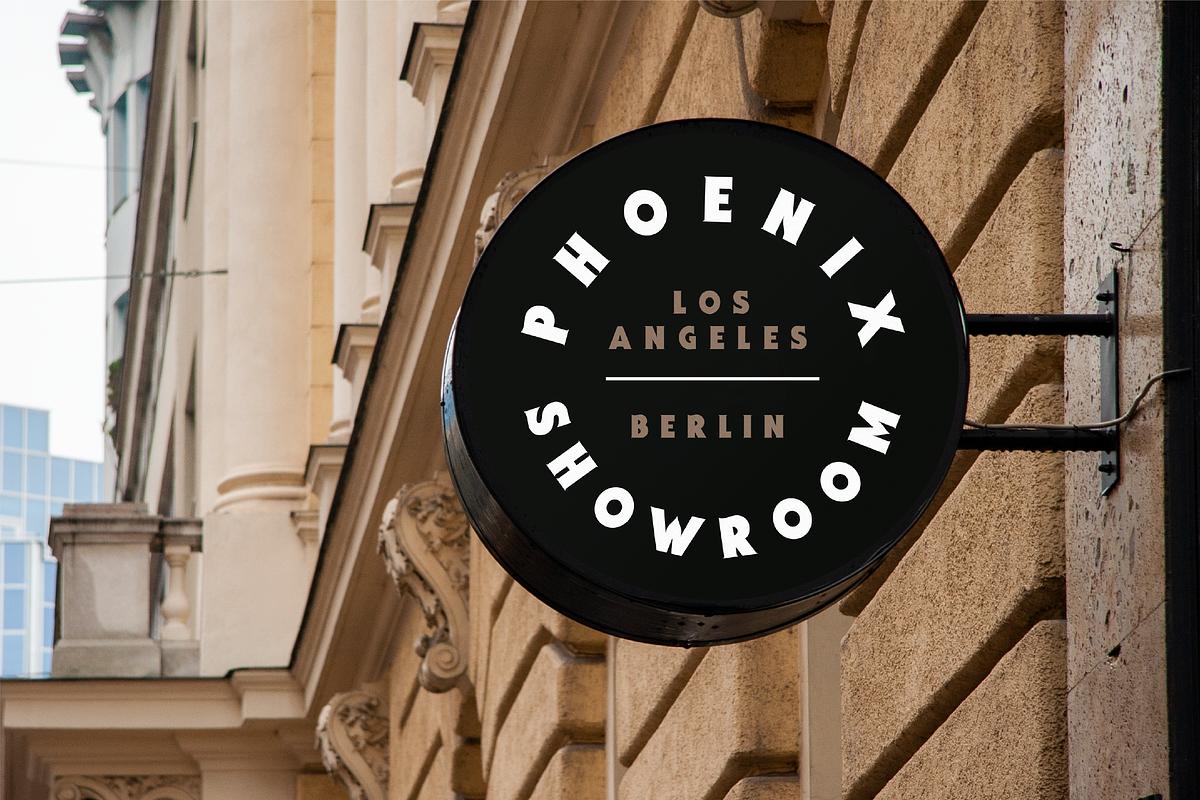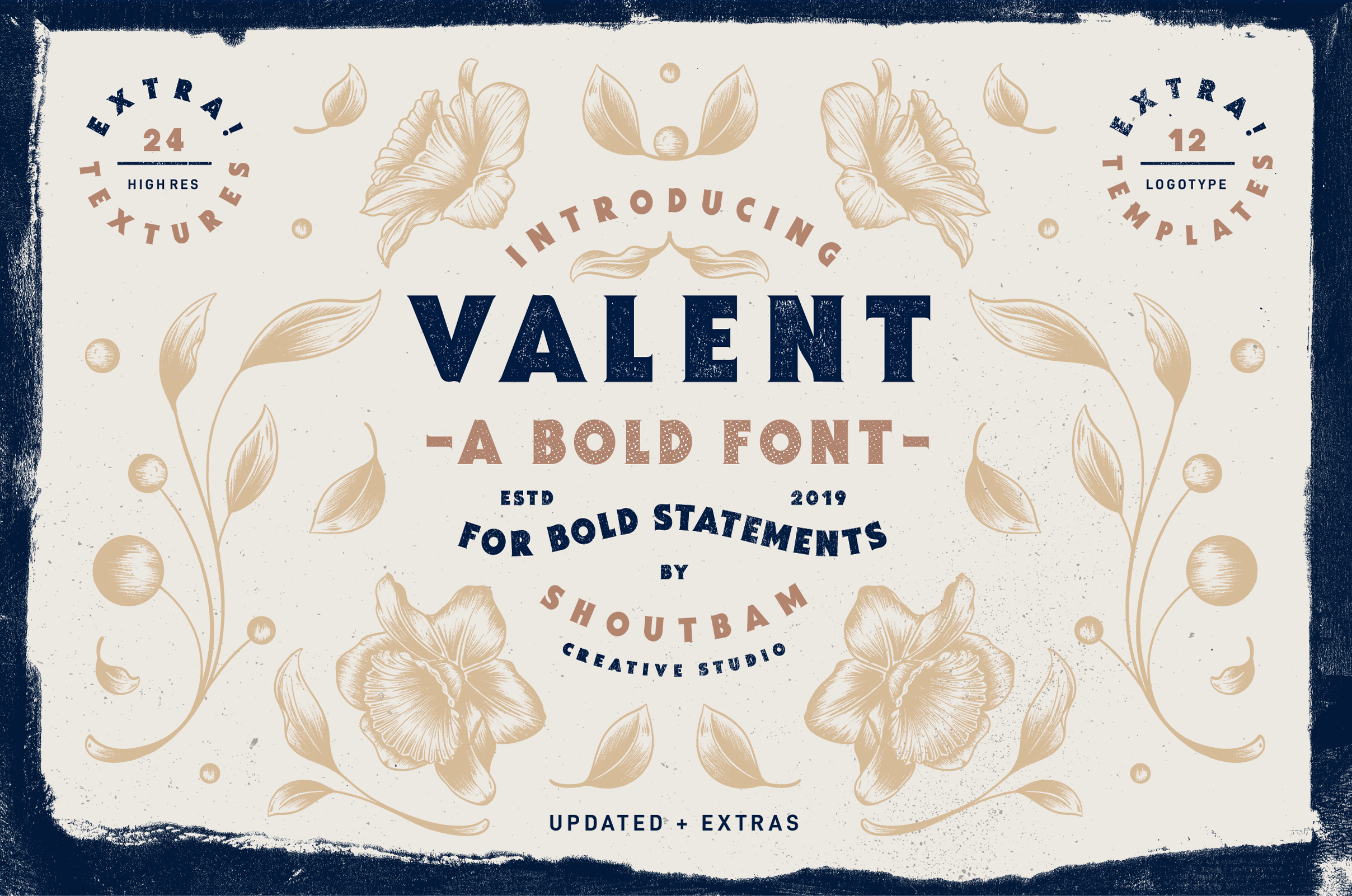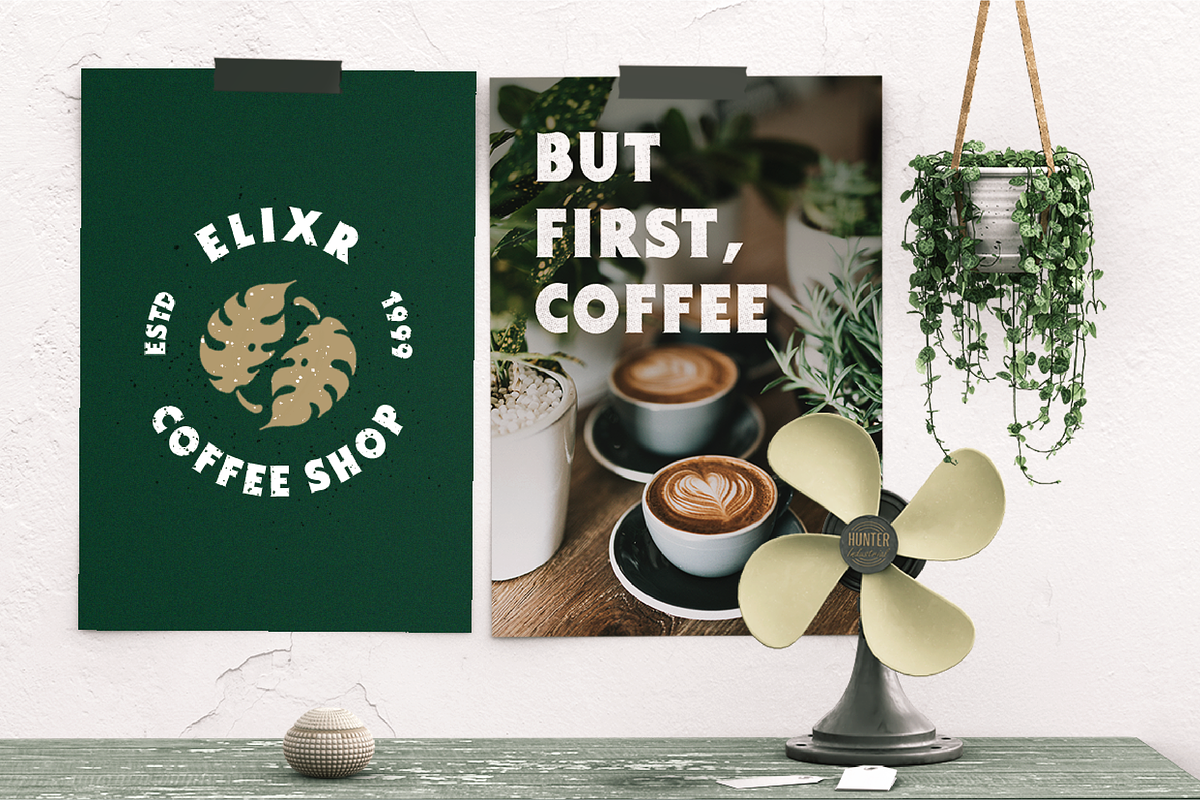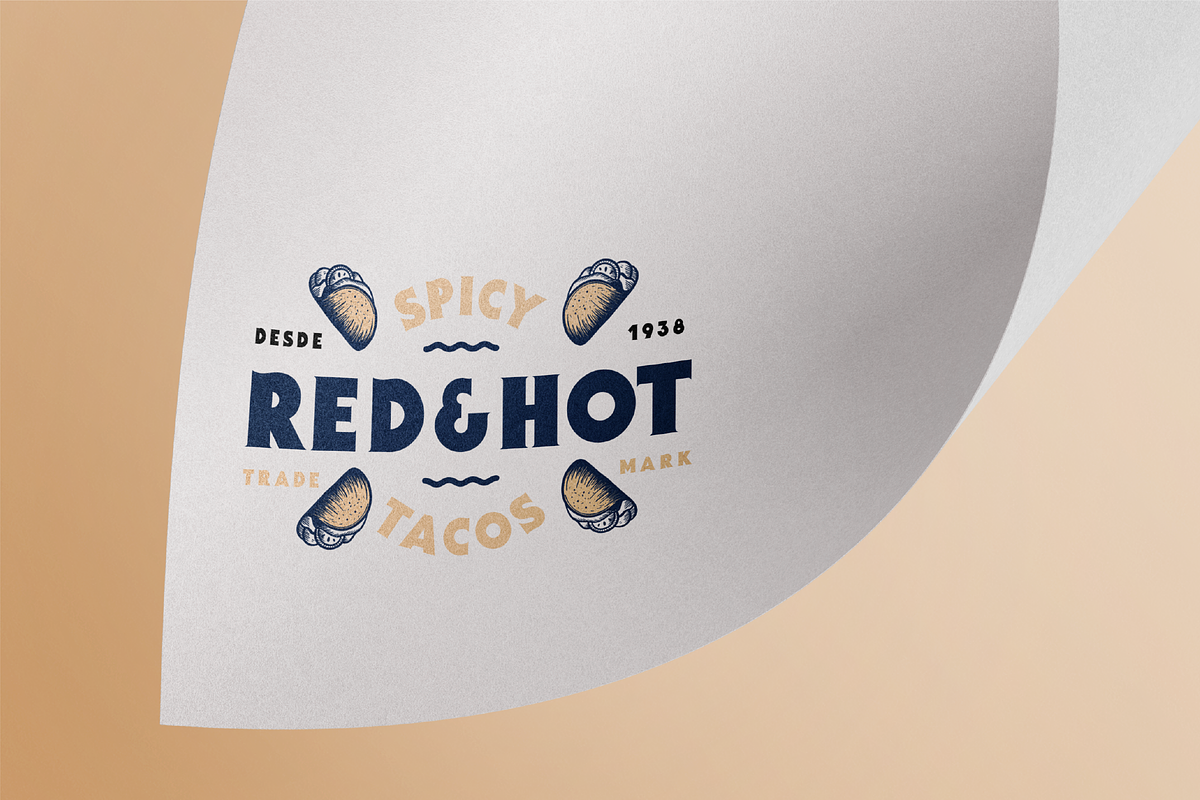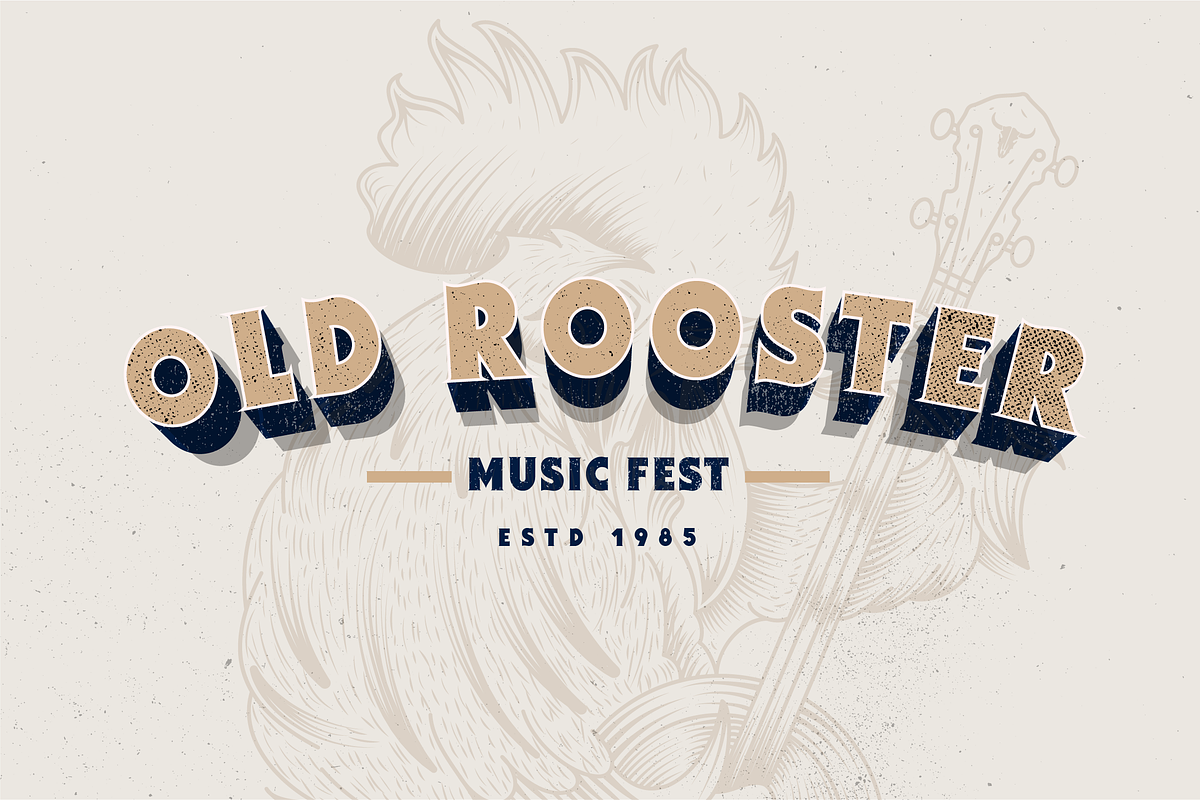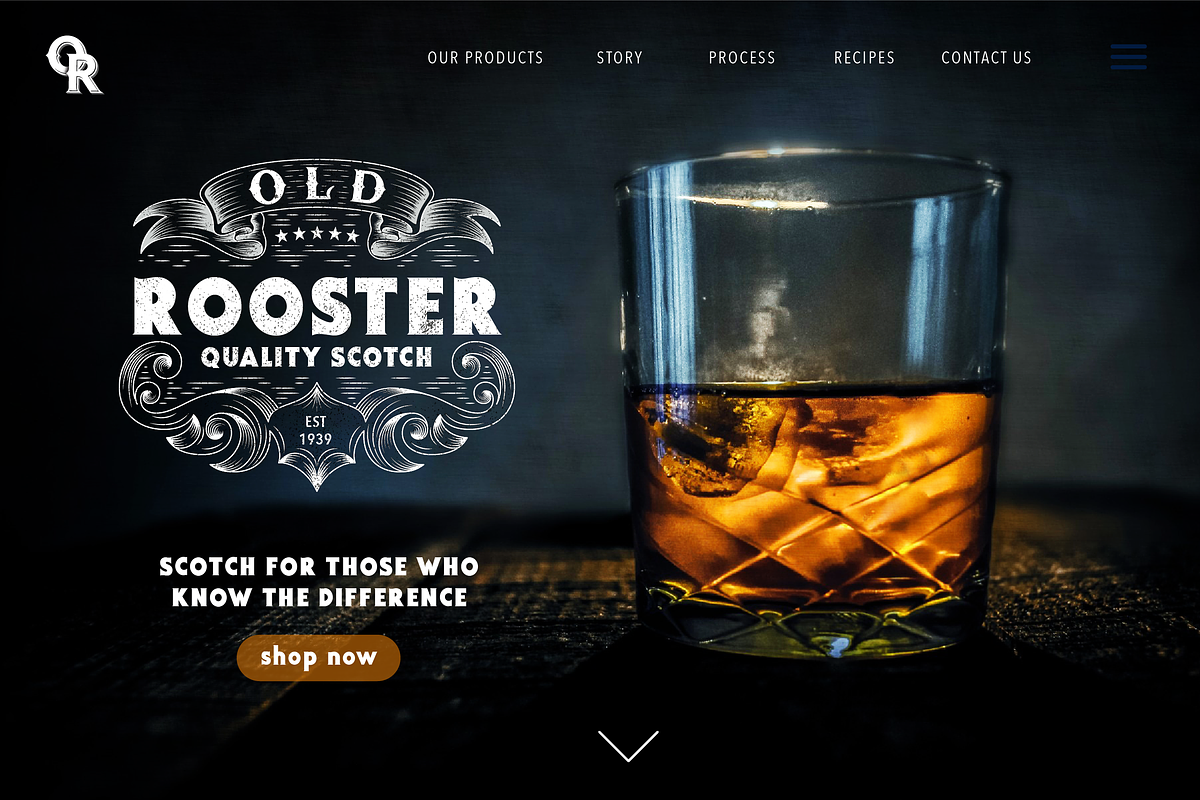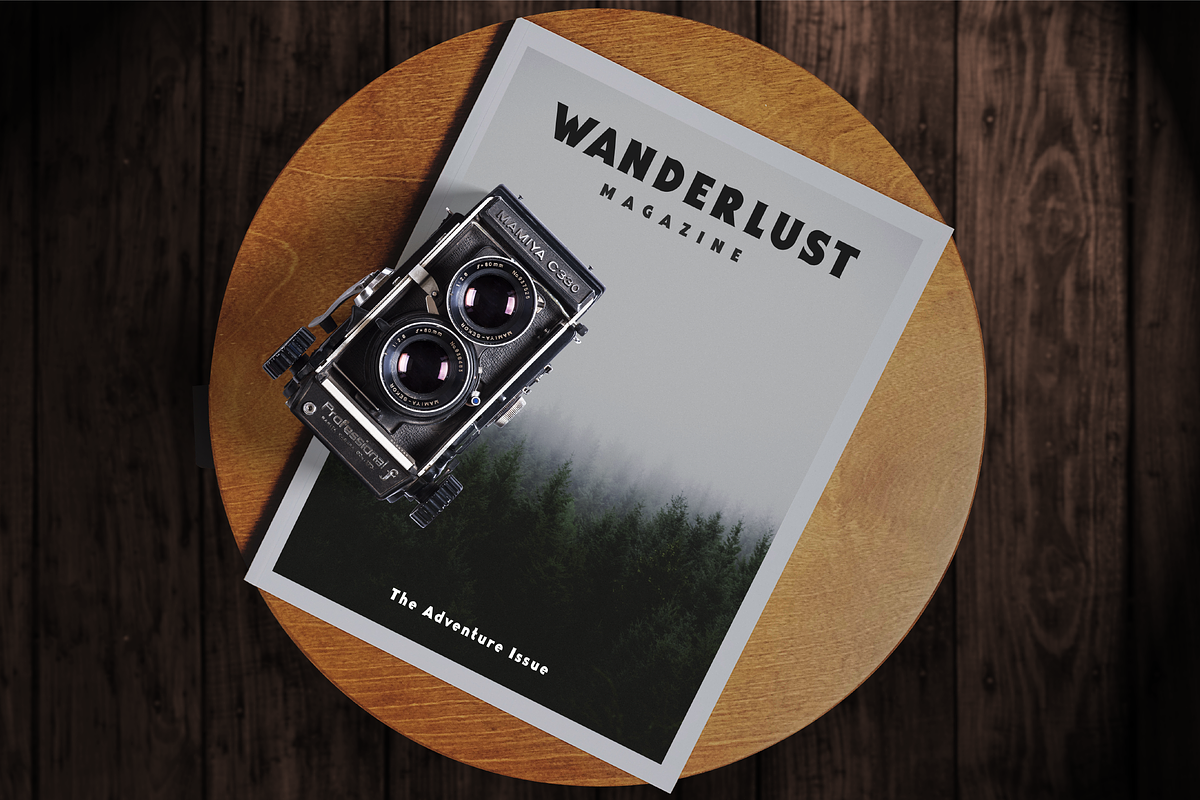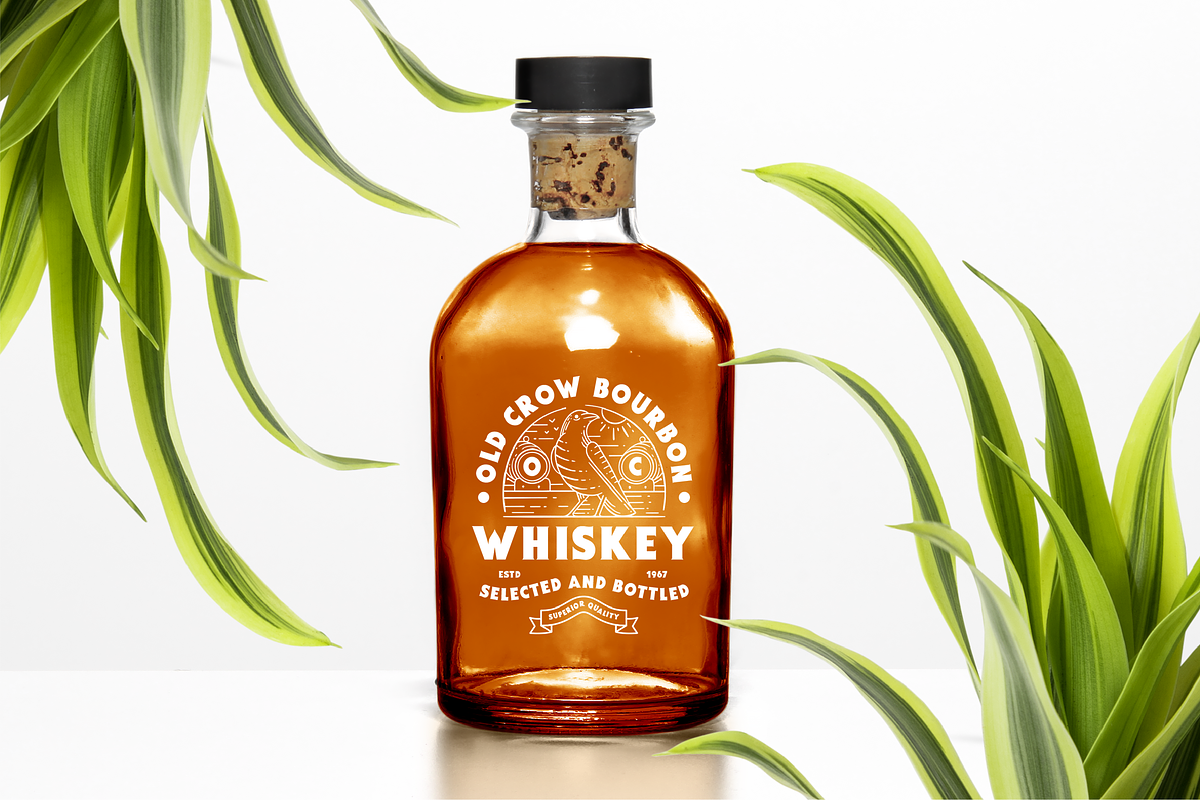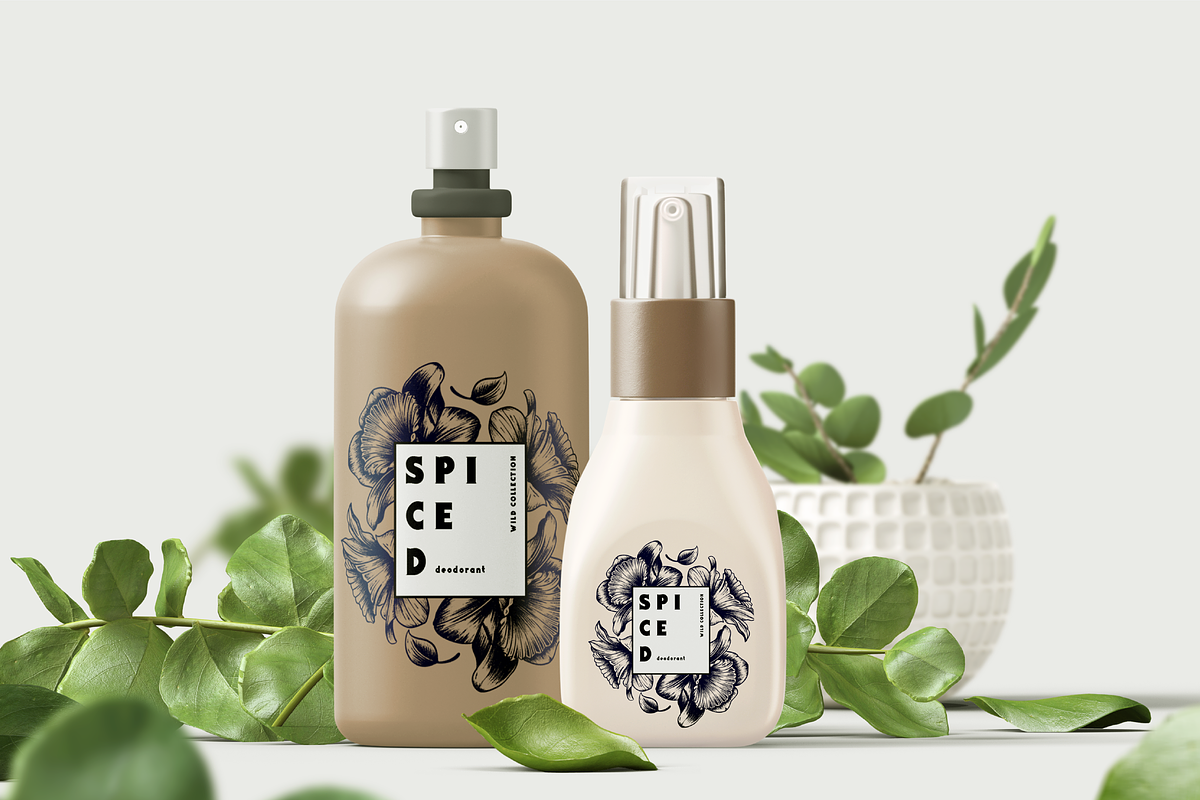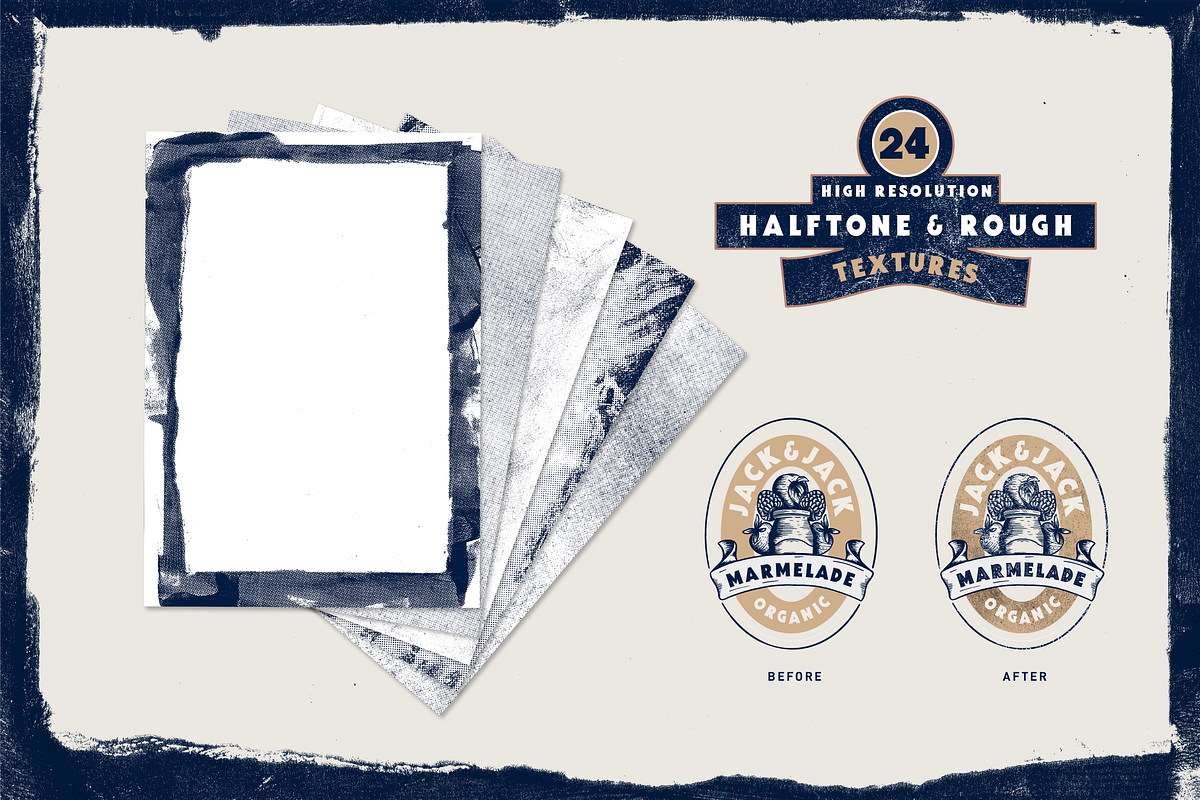
Valent Font (New Update)
Introducing Valent - Logotype Bundle
Say hello to Valent! A bold font for bold statements! With its thick body and charming serifs, Valent is perfect for vintage inspired retro logotypes and designs (12 logotype templates included!). Also, Valent looks amazing on branding projects, packaging and as big magazine headlines!
LOGOTYPE TEMPLATES Each logotype template is carefully crafted and it has a unique shape that can be used for both retro and modern designs. Also, they are fully editable so you can play with them or even mix them to create your own distinctive logotype!
ILLUSTRATIONS To help you create premium designs with retro feel we made 22 hand drawn illustrations in 2 styles
- Modern, clean style
- Detailed style with a rustic finish.
TEXTURES Our textures come in both black and white colour and they are really easy and simple to apply to your designs. They have been crafted by hand with analog tools and give a realistic old fashioned touch.
Valent was created with great care and consideration for variety and usability.
Valent also includes full set of uppercase and lowercase letters, multilingual symbols, numerals and punctuation.